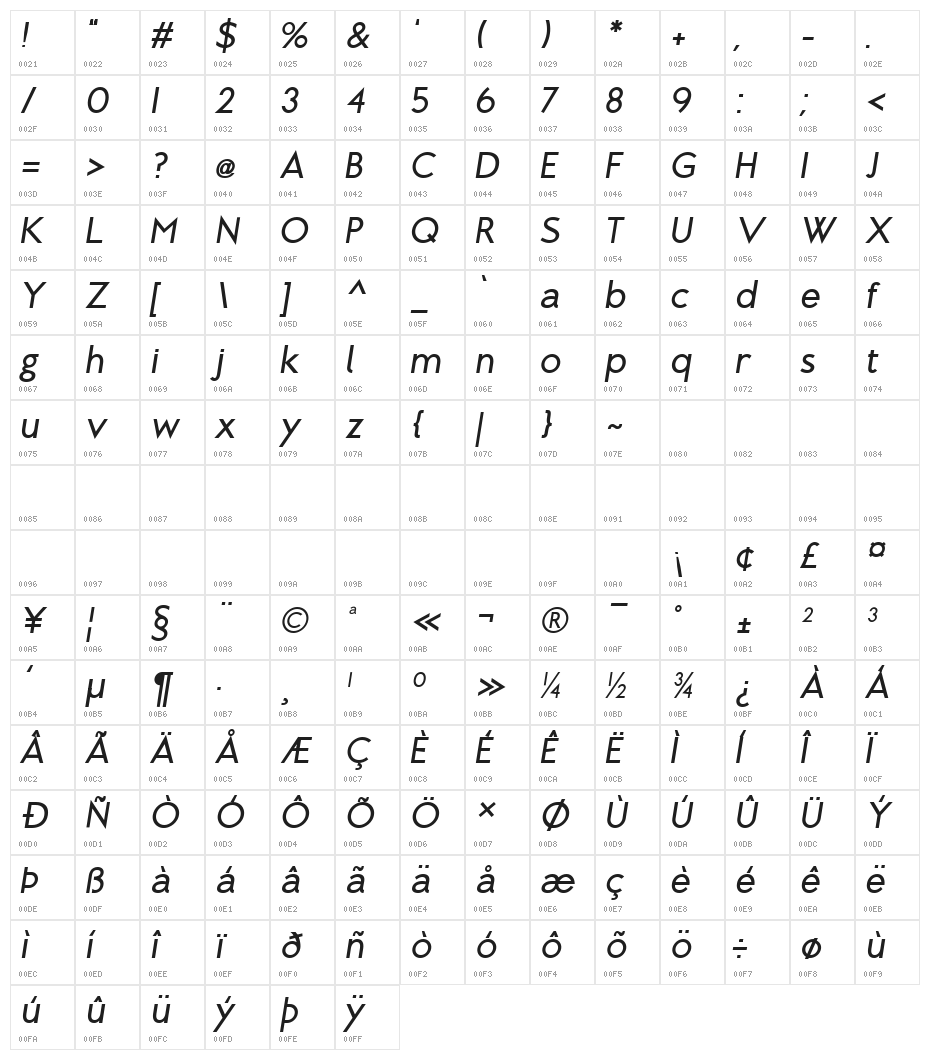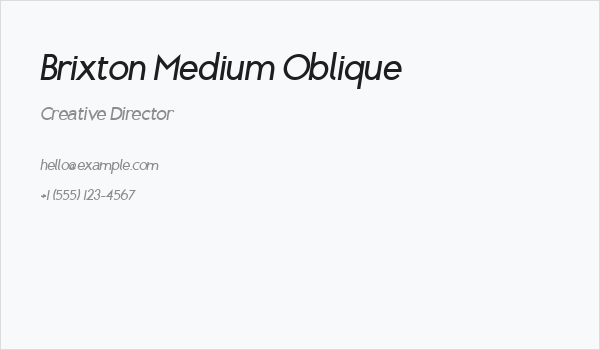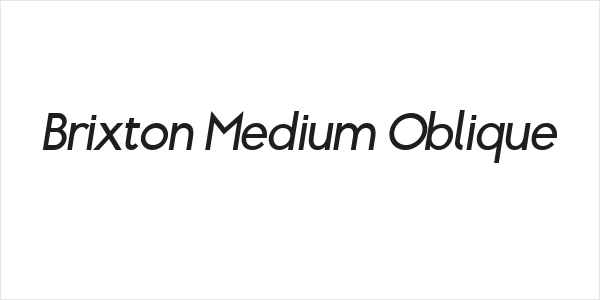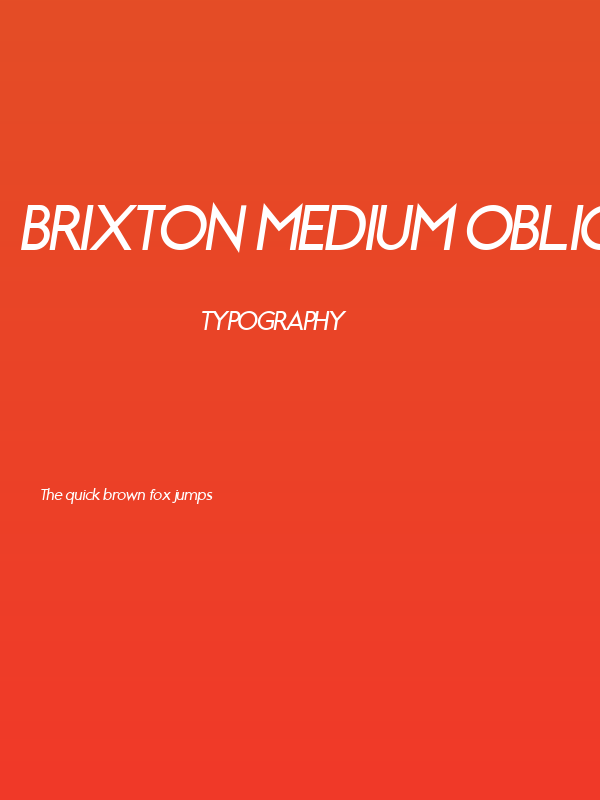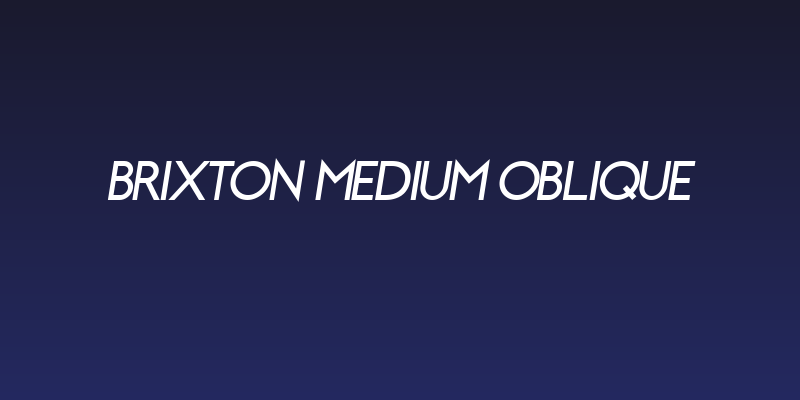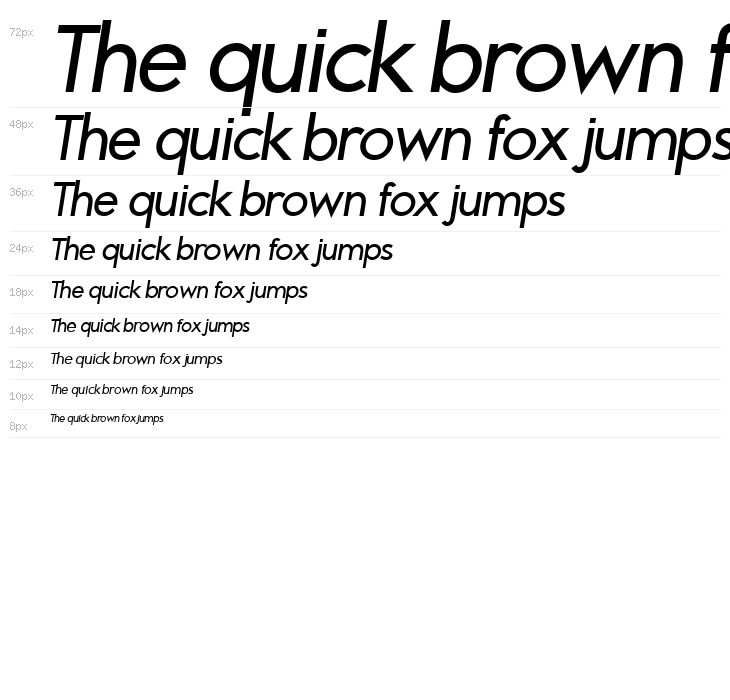
Brixton Medium Oblique Font
Brixton Medium Oblique Description
This font features a sleek, oblique style that gives it a dynamic and modern appearance. The characters are slightly slanted, adding a sense of motion and energy. The typeface is sans-serif, with clean lines and a uniform stroke width that maintains readability while providing a contemporary look. The uppercase and lowercase letters are well-proportioned, and the numerals are clear and distinct. Special characters are included, offering versatility for various design needs. The overall design is both functional and stylish, making it suitable for a wide range of applications.
| Proposed Projects | Ideal for branding, advertising, and editorial design projects that require a modern and energetic feel. |